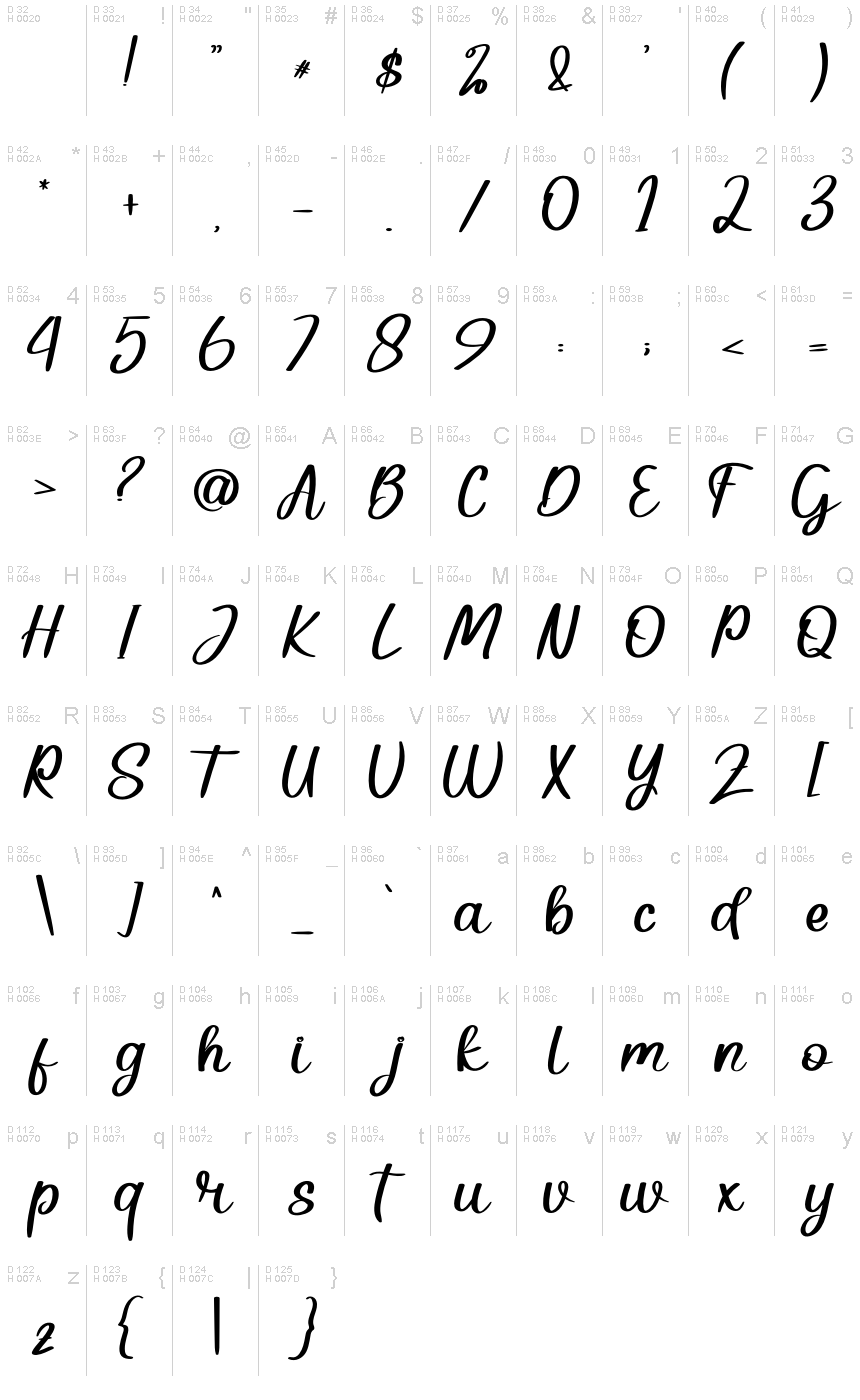
Beachclub
Beachclub, designed by Etik Fatimah, is a handwritten font that exudes a sense of casual elegance and personal touch. With its flowing, easy-to-read characters, Beachclub captures the essence of handwritten correspondence with a modern flair. The aesthetic appeal lies in its organic structure and varied stroke weights that mimic the nuances of natural handwriting.
This font's stylish appearance makes it an excellent choice for projects requiring a touch of intimacy and charm. From personalized invitations to branding materials for boutique businesses, Beachclub adds warmth and character to any design. Additionally, it has the versatility to enhance creative endeavors such as social media graphics, packaging design, or editorial content where a friendly and approachable vibe is desired.
The uniqueness of Beachclub lies in the balance between legibility and artistic expression; it provides designers with an opportunity to convey messages with both clarity and personality. Whether you're crafting beach-themed event signage or looking for that special font for your lifestyle blog header, Beachclub's distinct style will certainly leave an impression.